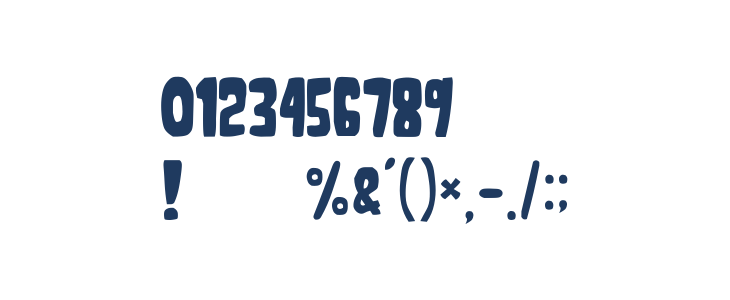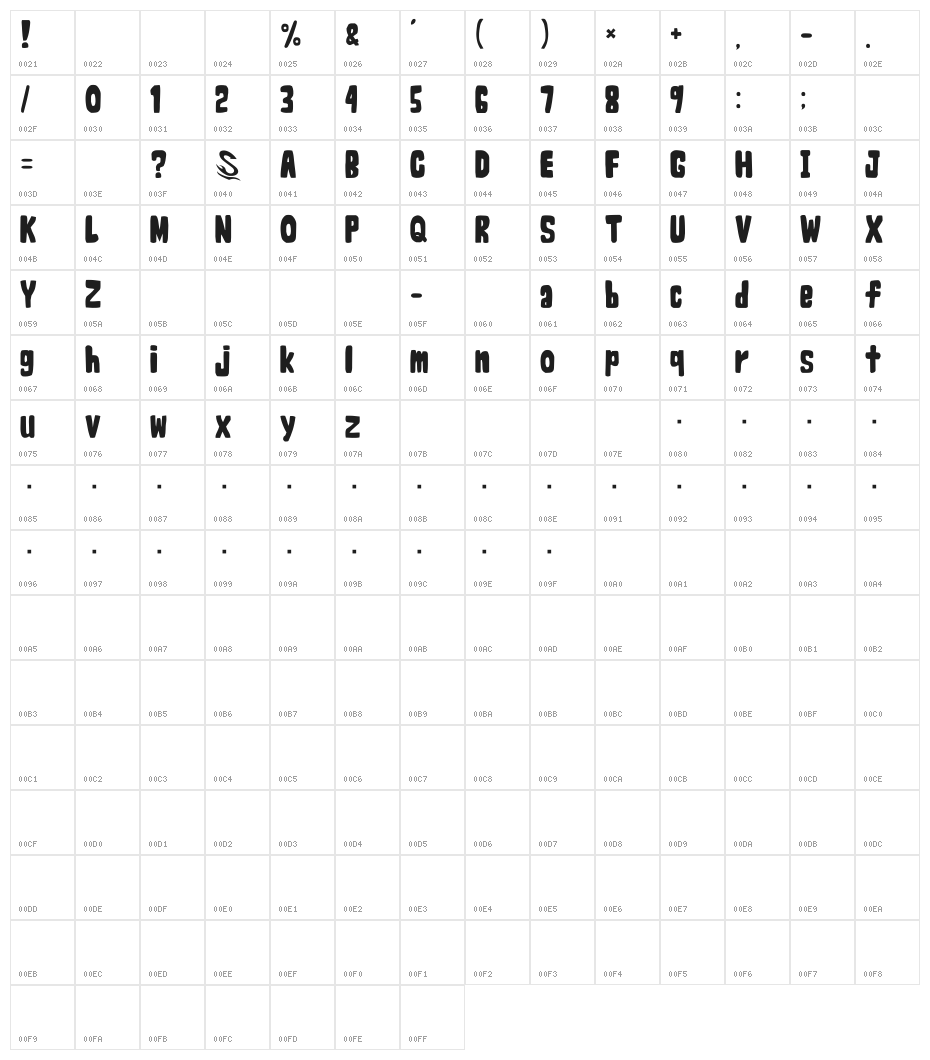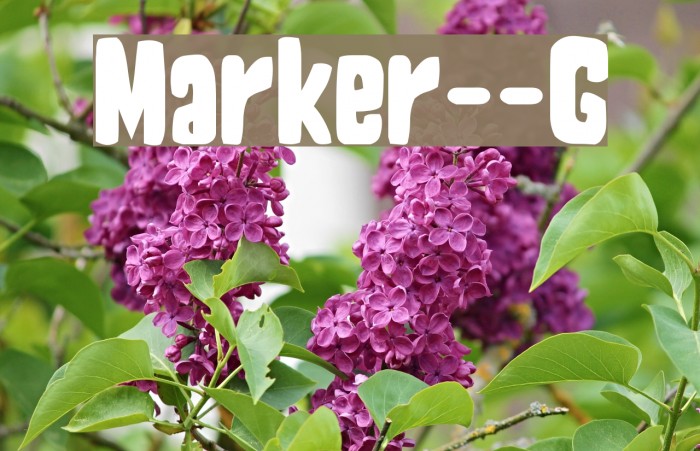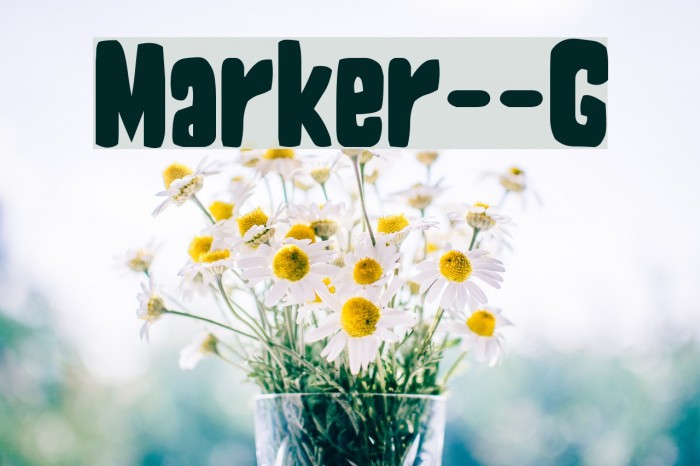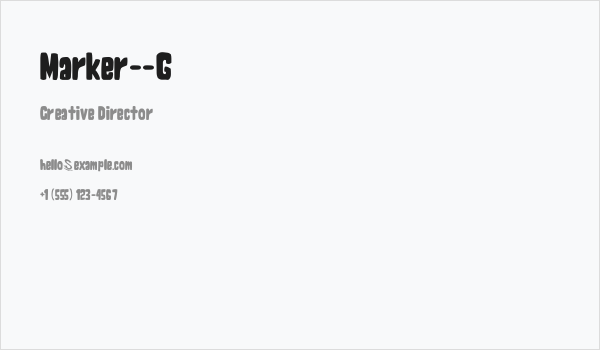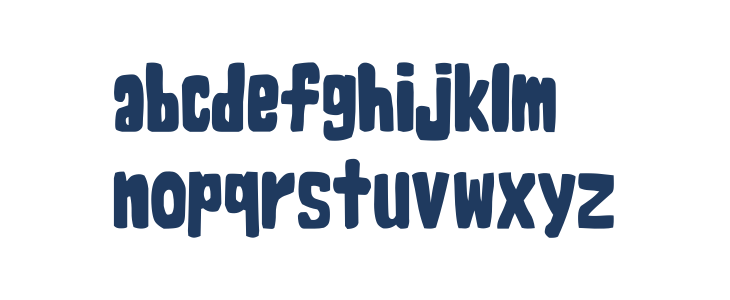
Marker__G Font
Marker__G Description
This font features bold, rounded characters with a playful and informal style. The letters are thick and slightly irregular, giving them a hand-drawn appearance. The uppercase and lowercase letters maintain a consistent weight, while the numbers and special characters complement the overall design. The font's unique style makes it stand out, with its bold presence and slightly condensed form. The characters are closely spaced, enhancing its compact and impactful look. This font is ideal for projects that require a fun and engaging aesthetic.
| Overall Style | Playful and informal |
| Proposed Projects | Perfect for children's books, playful branding, posters, and creative design projects. |